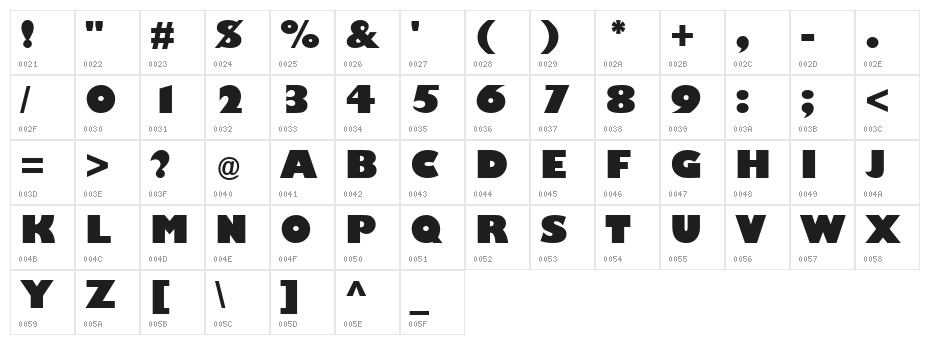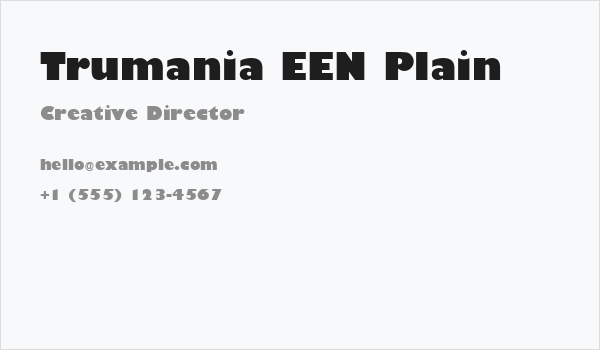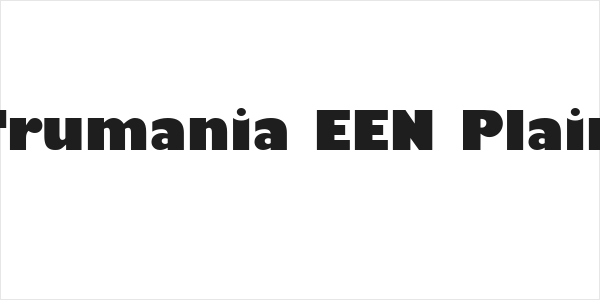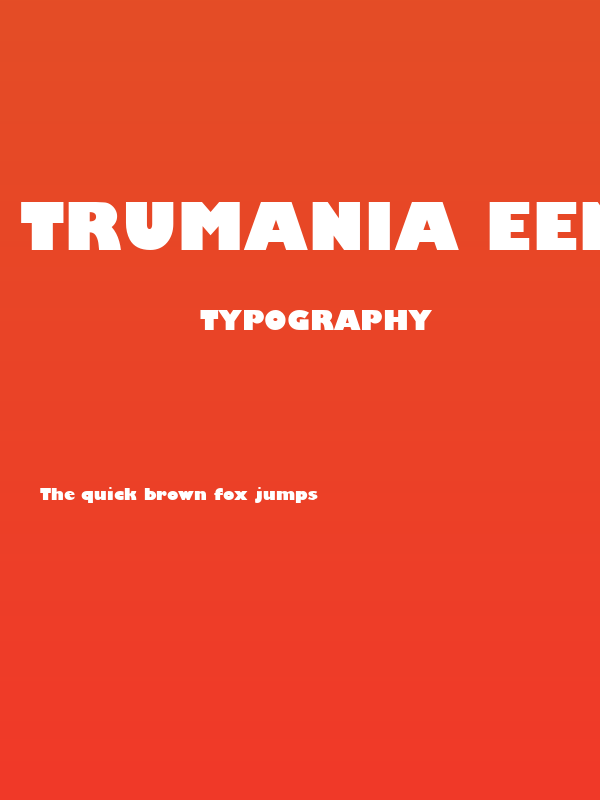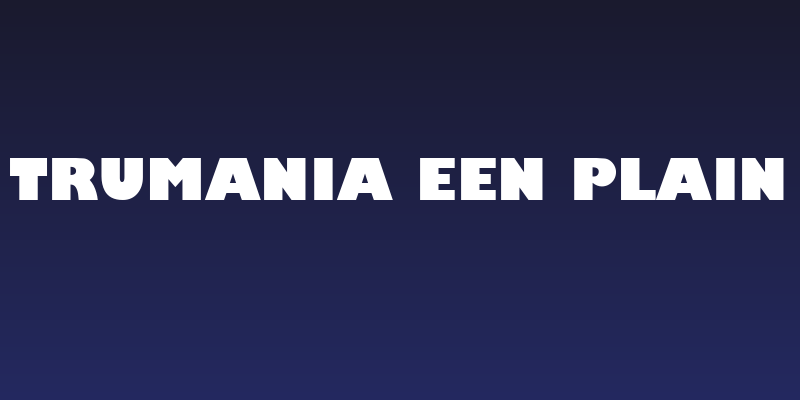
Trumania EEN Plain Font
Trumania EEN Plain Description
This font features bold, geometric letterforms with a strong presence. The uppercase characters are uniformly wide and blocky, creating a sense of stability and strength. The lowercase letters maintain a similar weight, with rounded edges that add a touch of softness to the overall design. Numbers are consistent with the bold style, ensuring readability and impact. Special characters are designed to match the boldness of the alphabet, making them stand out effectively. The font's design is ideal for making a statement, with its high contrast and solid structure.
| Proposed Projects | Ideal for headlines, posters, branding, and any project requiring a bold, impactful typeface. |